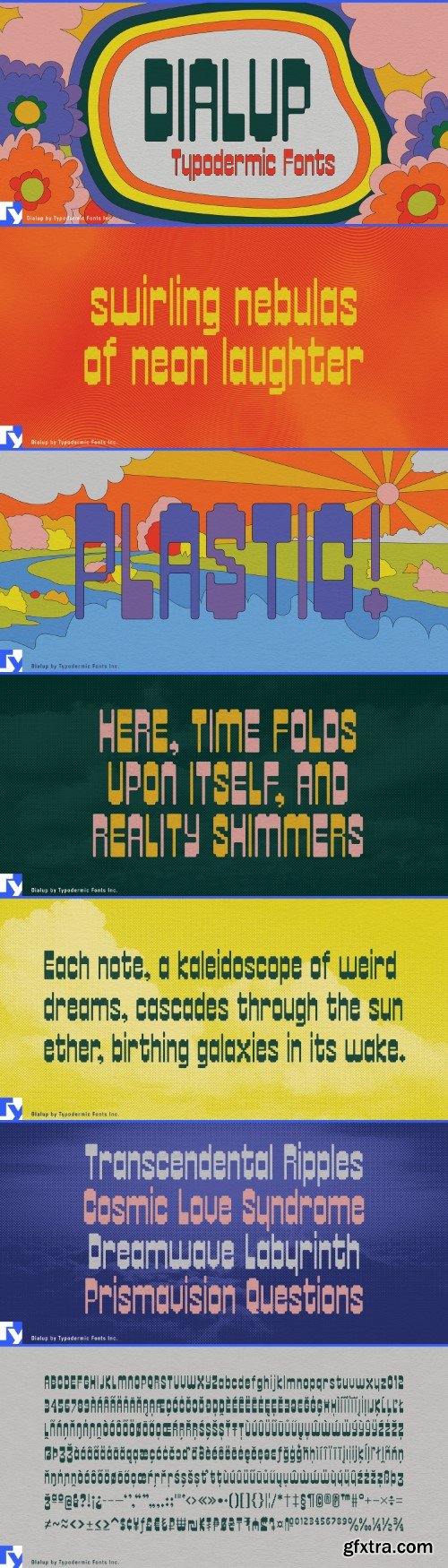
Introducing Dialup from Typodermic Fonts, a bold step back into the dynamic era of the 1970s, infused with the spirit of innovation and the soul of the psychedelic age. Dialup is a homage to the groundbreaking work of Bob Newman and Philip Kelly, inspired by the classic Zipper typeface and blended with the analog charm of Data ‘70.
In a time when expression was as vibrant as the fashion and music that defined it, Dialup captures the essence of the period with its psychedelic pixel design, bringing a unique flair to modern layouts. This font combines the adventurous spirit of the 1970s with a touch of ‘80s sophistication, making it perfect for those seeking to infuse their projects with a sense of nostalgia and innovation.